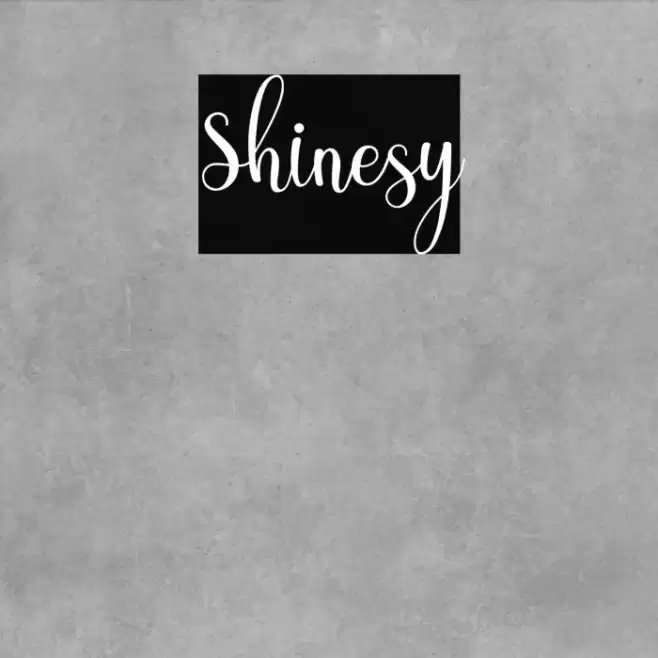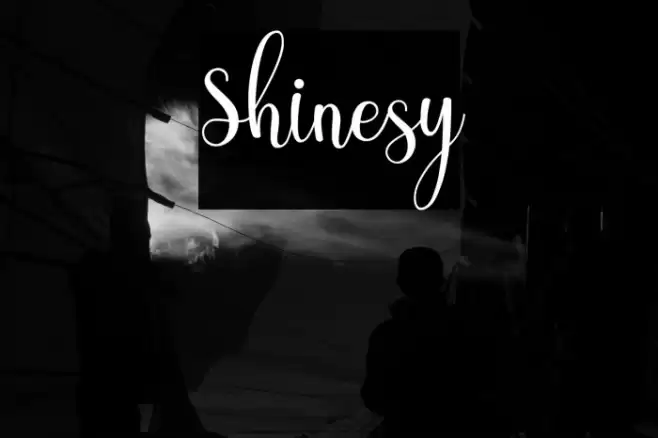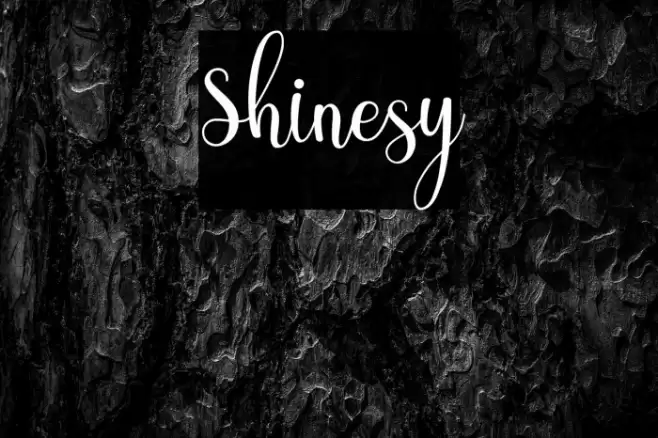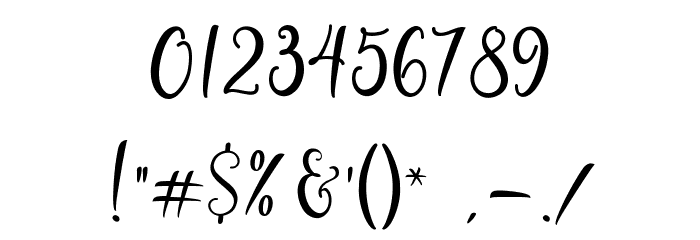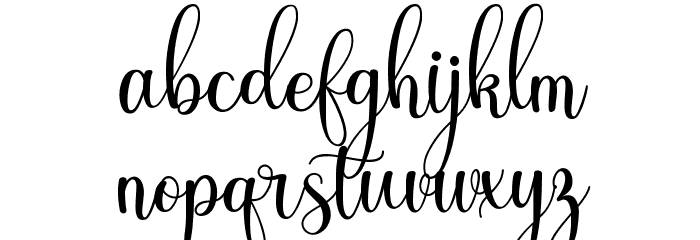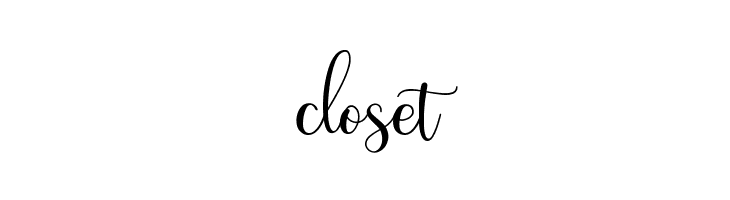
Shinesy Font
Shinesy Description
This font features an elegant, flowing script style with a modern twist. The characters are intricately designed with smooth curves and a slight slant, giving it a handwritten appearance. The uppercase letters are bold and prominent, while the lowercase letters maintain a delicate balance with their elongated loops and swashes. The numerals are consistent with the overall style, maintaining the same fluidity and grace. Special characters are thoughtfully integrated, ensuring they complement the alphabetic characters. This font exudes a sense of sophistication and creativity, making it ideal for projects that require a personal touch.
A modern, elegant script font with flowing, handwritten characteristics from Uncategorized fonts.
- Proposed Projects: Ideal for wedding invitations, greeting cards, branding, and logo design.
- Use Case: Logos, Invitations, Decorative text